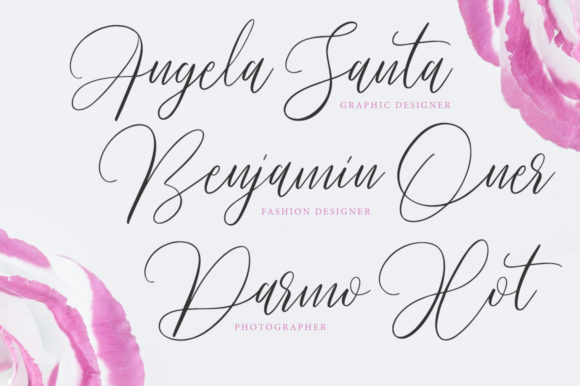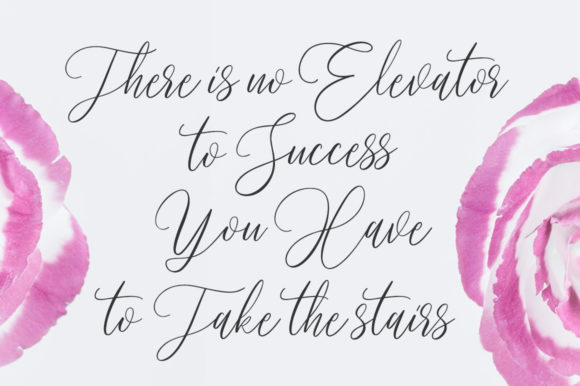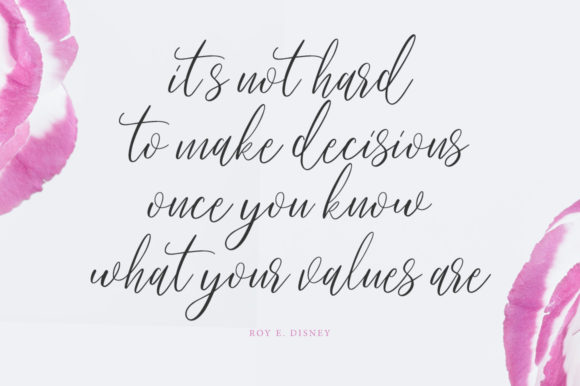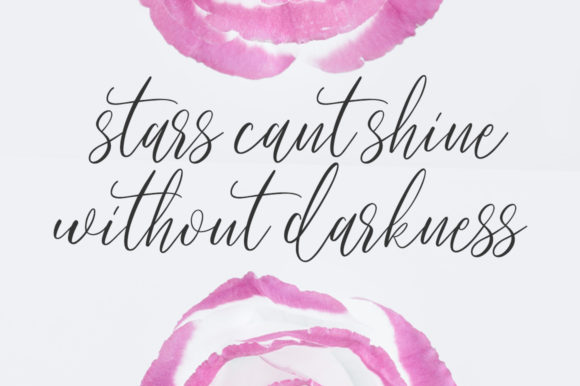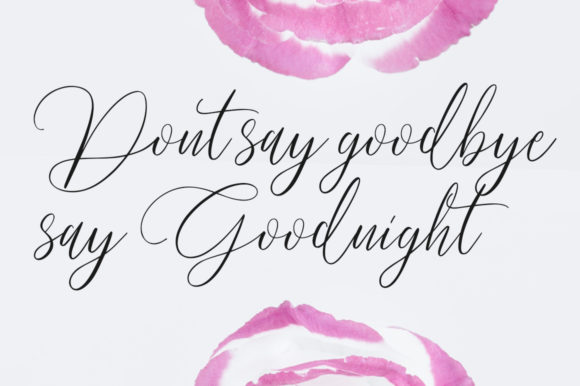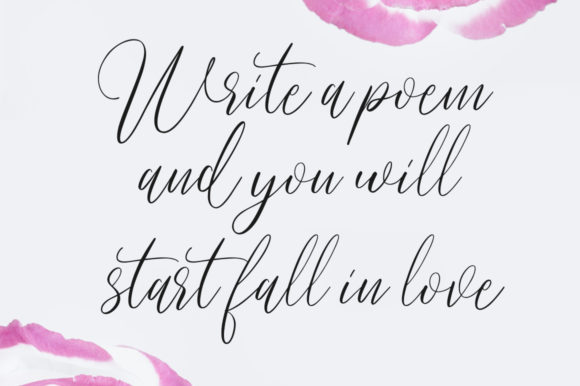
Introduction to Pradita Font
Have you ever stumbled upon a beautiful handwritten font that makes you feel like your design project has finally come to life? For many designers, this moment is a game-changer, and it’s exactly what happens when you discover the stunning Pradita Font. This lovely, high-quality font has an authentic feel that’s perfect for creative projects where you want to convey a sense of warmth and personality.
As a valuable design resource, Pradita Font offers a unique combination of elegance and playfulness that’s hard to find in other fonts. With its transparent background and beautiful letterforms, it’s perfect for designers who want to add a touch of sophistication to their designs without overpowering the content. Whether you’re working on a branding project, a wedding invitation, or a social media campaign, Pradita Font is sure to be a great addition to your design toolkit.
Key Features of Pradita Font
- Designed with precision and attention to detail, featuring a clean and modern aesthetic that is perfect for a wide range of design projects.
Honest Review: Pradita Font
I recently stumbled upon the Pradita Font and I must say, it’s a great addition to any designer’s arsenal. This high-quality font is perfect for creative projects that require a unique and eye-catching touch.
- Unique and elegant design
- Perfect for creative projects and design resources
However, there are some limitations to consider. The font may not be suitable for projects that require a bold and heavy font style. Additionally, the font’s design may not be as modern as some other fonts on the market.
Overall, I’m impressed with the Pradita Font. Its unique design and versatility make it a great addition to any designer’s toolkit. While it may have some limitations, it’s definitely worth checking out for your next creative project.
The Pradita Font is a high-quality design resource ideal for creative projects requiring a unique and elegant touch. With its transparent background, this font is perfect for overlaying on images or backgrounds.
The Pradita Font is ideal for a variety of creative projects, including wedding invitations, branding materials, and digital products. Its elegant and sophisticated design makes it perfect for any project requiring a touch of luxury and sophistication.